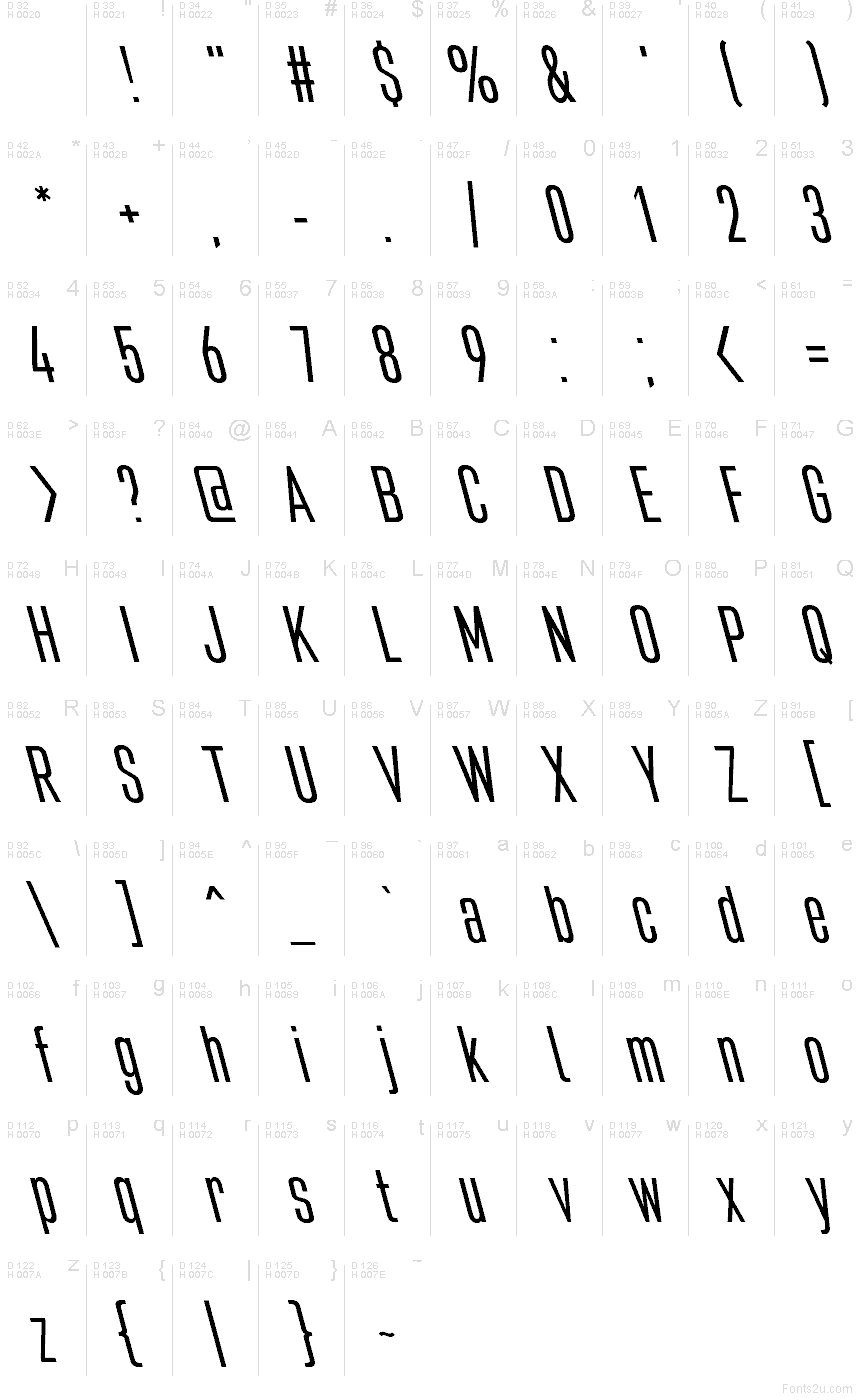
Bilgen Demo Semi Bold Left
Bilgen Semi Bold Left font by Bykineks is a free condensed sans serif typeface that tilts against the grain—literally. Each letter leans left with a taut, forward‑slashing energy, turning simple words into bold, graphic shapes. The semi bold weight and narrow proportions pack a strong punch in tight spaces, while the Bilgen family’s alternates, ligatures, and small caps let you dial the drama up or down without losing that sleek, modern edge.
Using Bilgen Semi Bold Left, headlines feel like they’re in motion—great for posters, edgy branding, album covers, tech interfaces, event graphics, and bold editorial titles. This free font thrives at larger sizes where its diagonal stance and snug spacing can really shout. Pair it with a clean, upright grotesque or a lighter Bilgen weight for body text to keep layouts readable while preserving that sharp, kinetic personality.